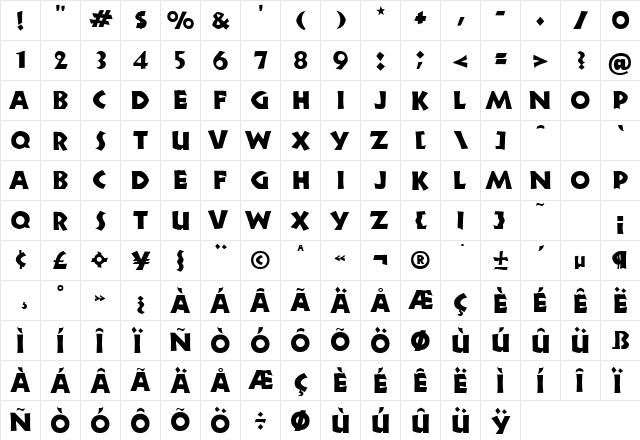
Zorba-Plain Regular
Design Context for Zorba-Plain Typeface
Zorba-Plain is a composed and adaptable typeface that performs quietly and consistently across a wide range of design contexts.